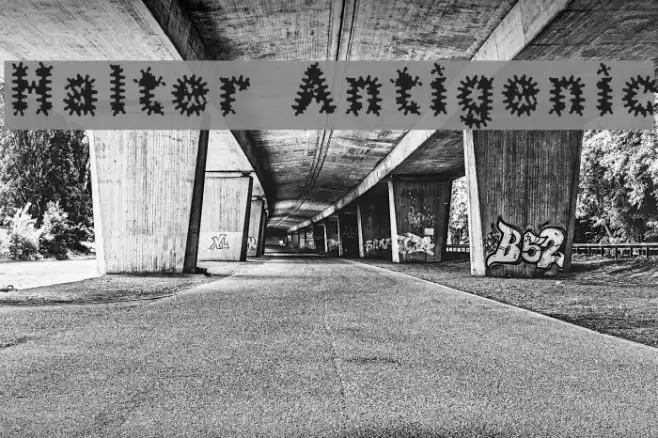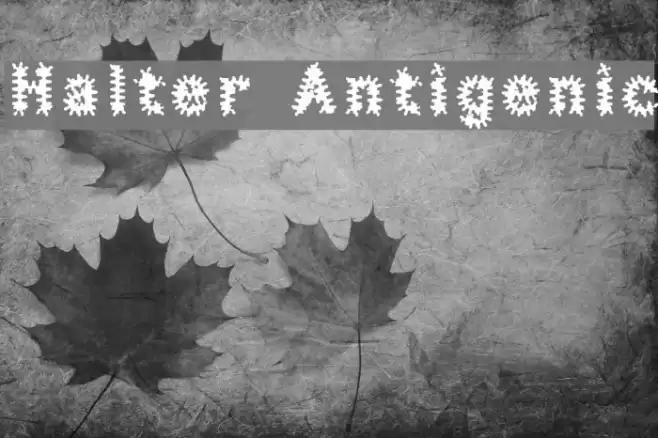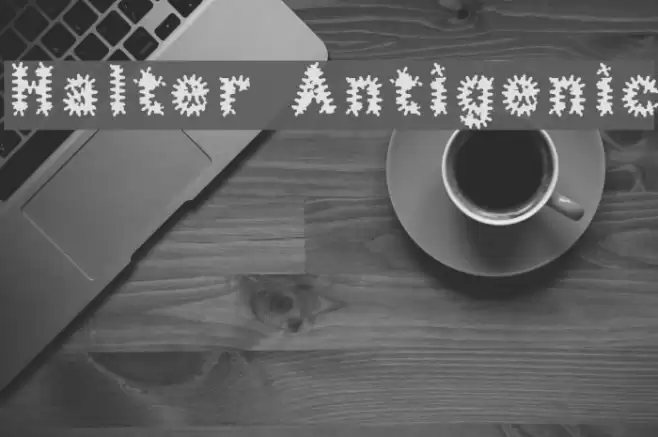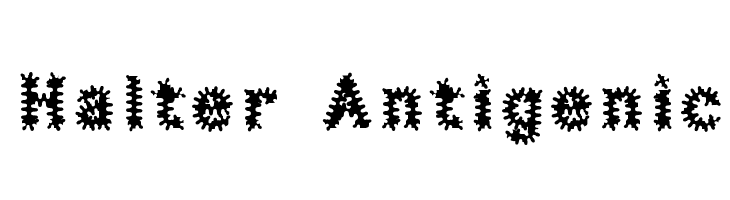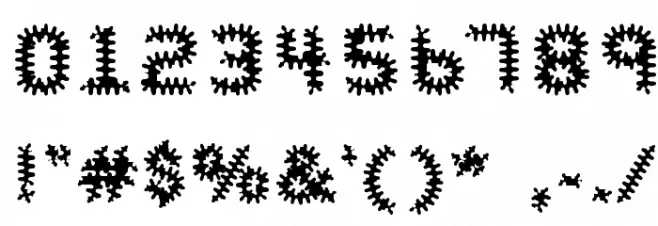
Halter Antigenic Font
Halter Antigenic Description
This font features a unique and bold design with each character resembling a series of interconnected gears or cogs. The edges are jagged and irregular, giving it a mechanical and industrial feel. The uppercase and lowercase letters maintain a consistent style, with the same gear-like texture applied throughout. Numbers and special characters are equally distinctive, ensuring a cohesive look across all glyphs. This font's striking appearance makes it ideal for attention-grabbing designs.
A bold, gear-like font with a mechanical, industrial aesthetic from Decorative fonts.
- Proposed Projects: Perfect for steampunk-themed designs, industrial branding, or any project requiring a bold, mechanical look.
- Use Case: Logos, Posters, Headlines